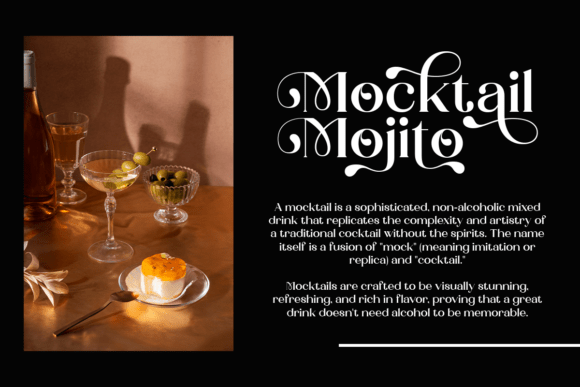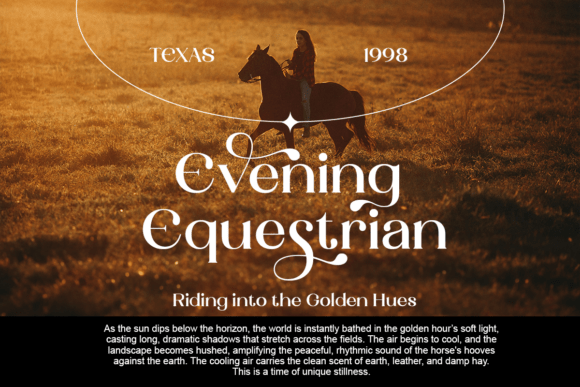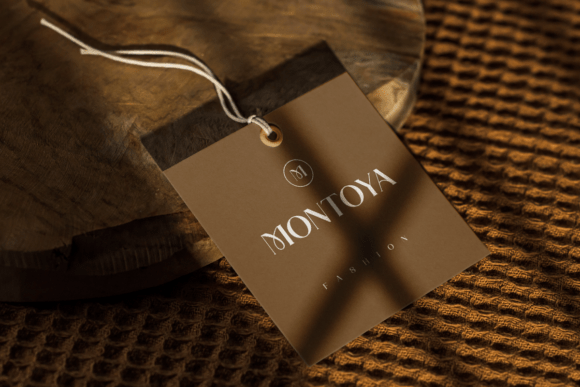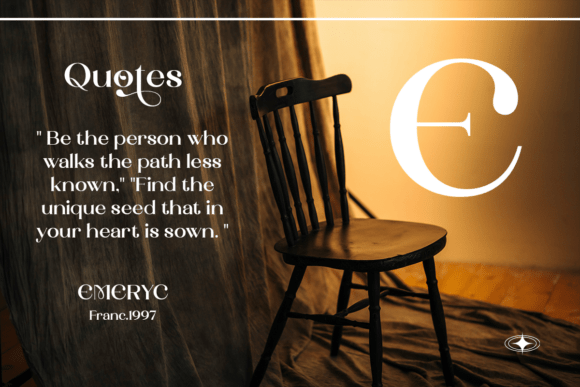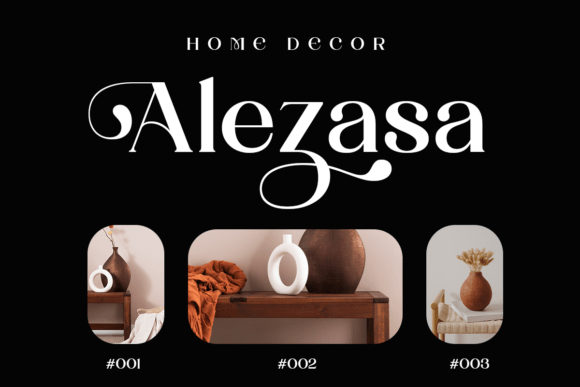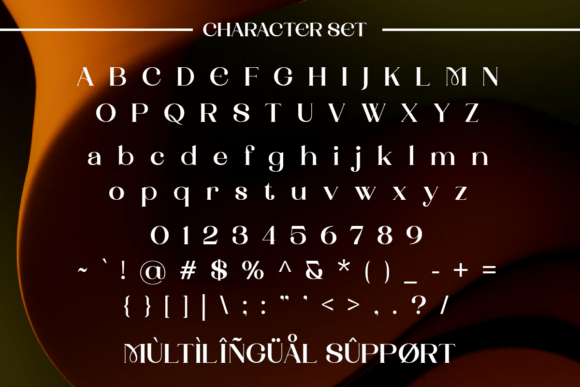
Introduction to Landmark Models Font Font
Fonts play a crucial role in design, and the Landmark Models Font font is a typeface that brings both character and versatility to any project. Whether you’re working on a branding project, a website, or a print design, the Landmark Models Font font offers a unique style that can elevate your work.
Landmark Models is a striking modern serif font with a playful twist.
Featuring high-contrast strokes and whimsical, flowing swashes, this typeface brings a sense of flair and sophistication to any design Ideal for fashion editorials, luxury branding, logos, magazine titles, and creative projects, Landmark Models combines elegance with personalityโmaking your typography truly unforgettable.
Key Features of Landmark Models Font Font
- โ High-quality typeface designed for professional use
- โ Includes a wide range of glyphs and characters
- โ Ideal for logos, branding, websites, and print
Why Choose Landmark Models Font Font?
The Landmark Models Font font is more than just a typeface โ it’s a design tool that helps you communicate your message with style and clarity. Its unique character set and versatile design make it suitable for a wide range of applications, from elegant invitations to bold headlines.
With its carefully crafted letterforms and balanced proportions, the Landmark Models Font font ensures readability and visual appeal across all mediums.
What makes Landmark Models Font font special?
The Landmark Models Font font stands out with its unique design, exceptional readability, and versatility across various design applications.